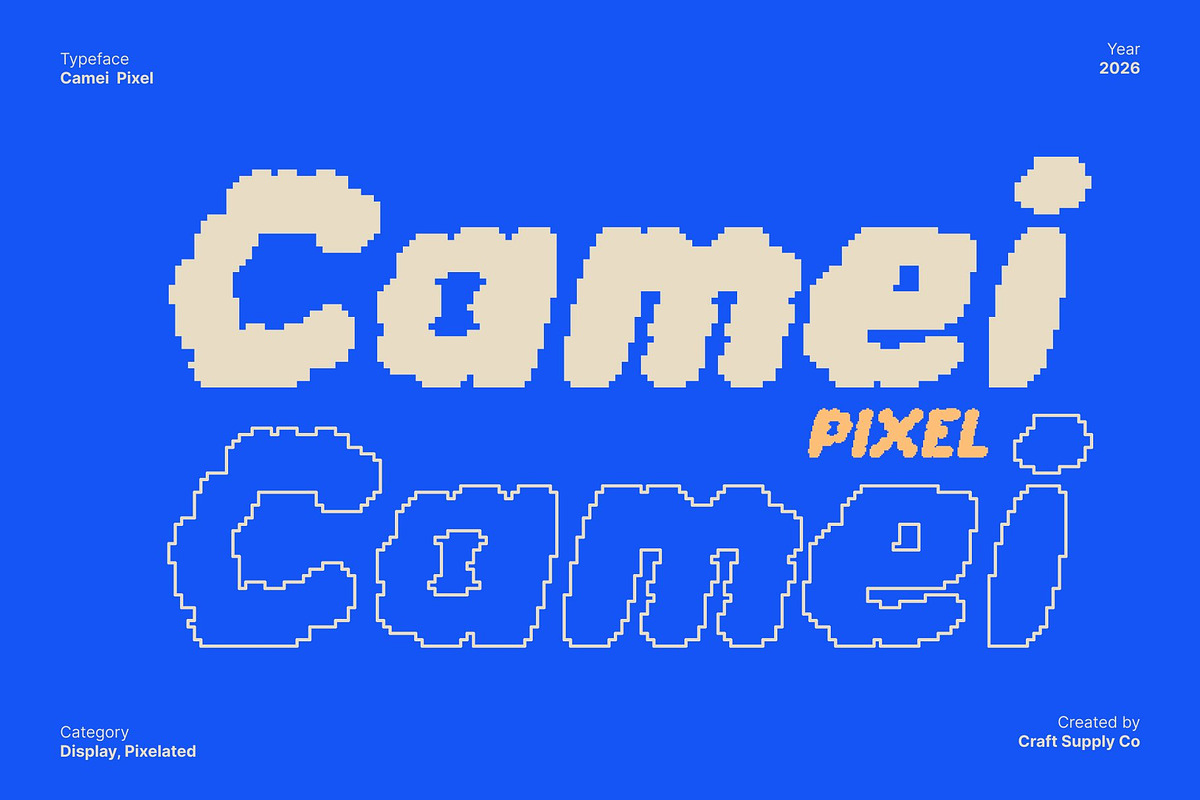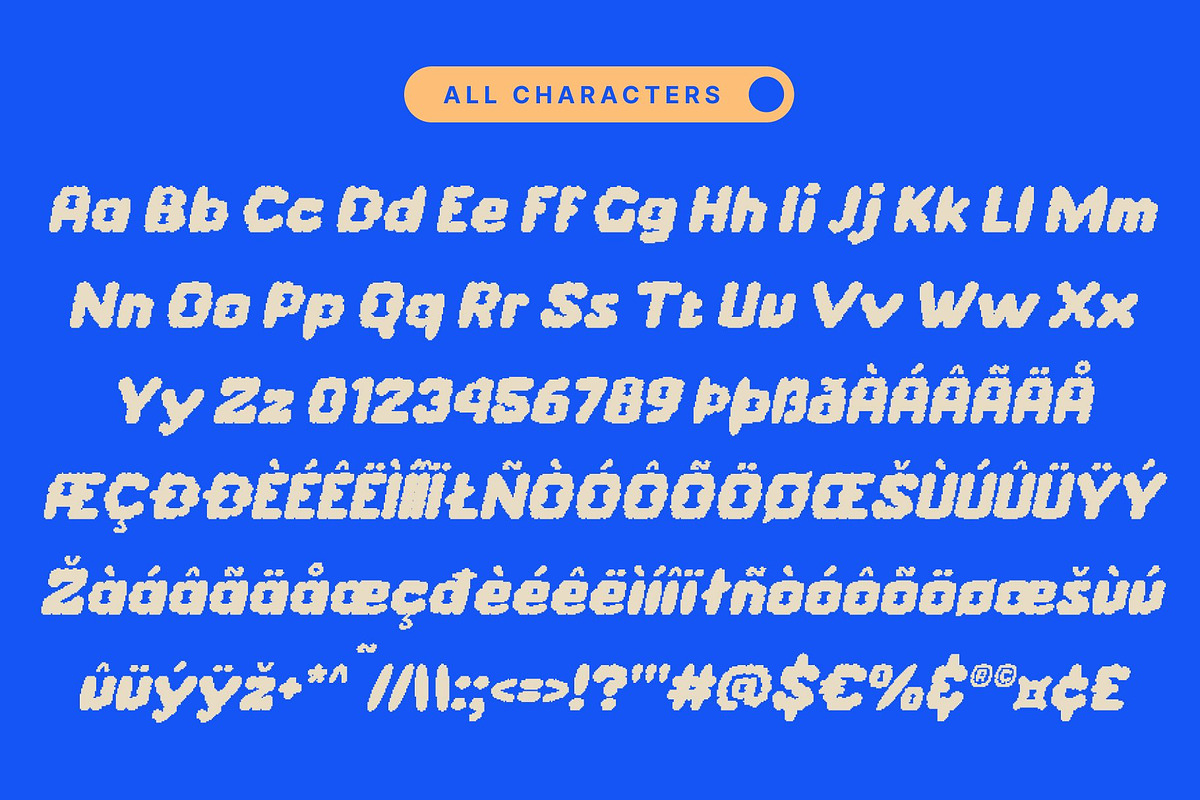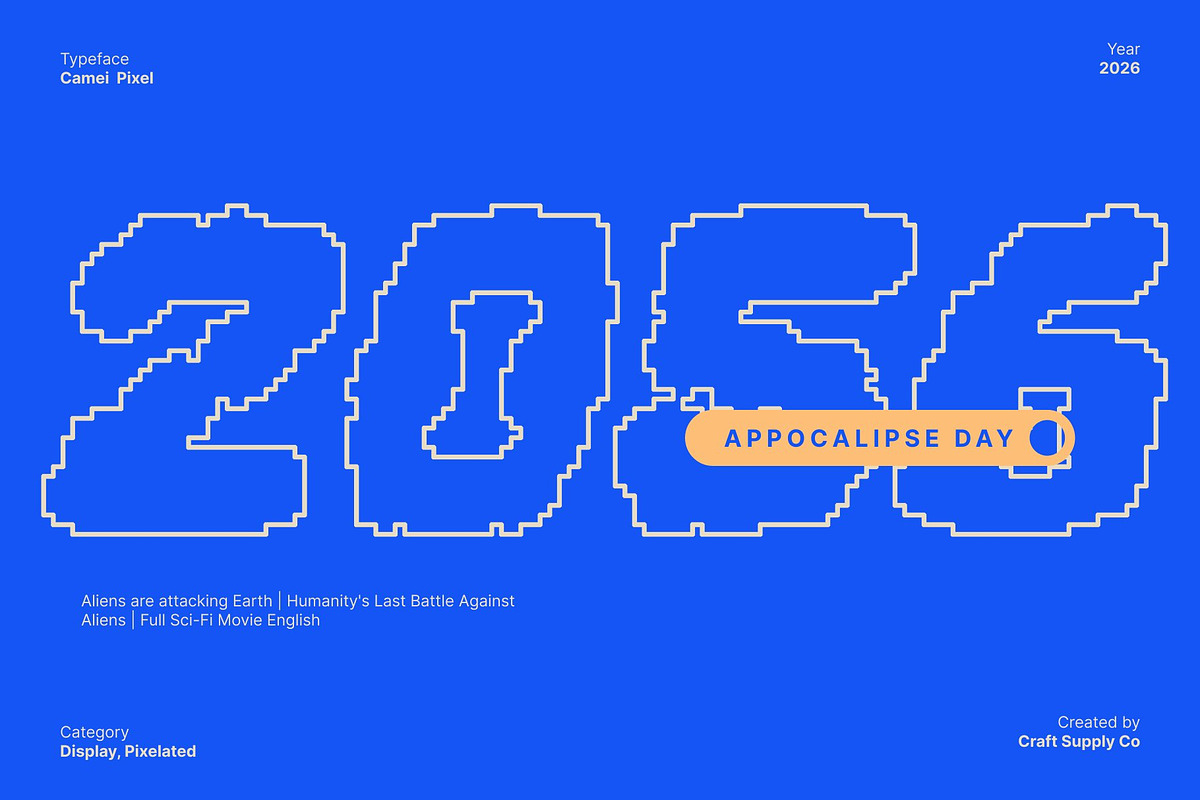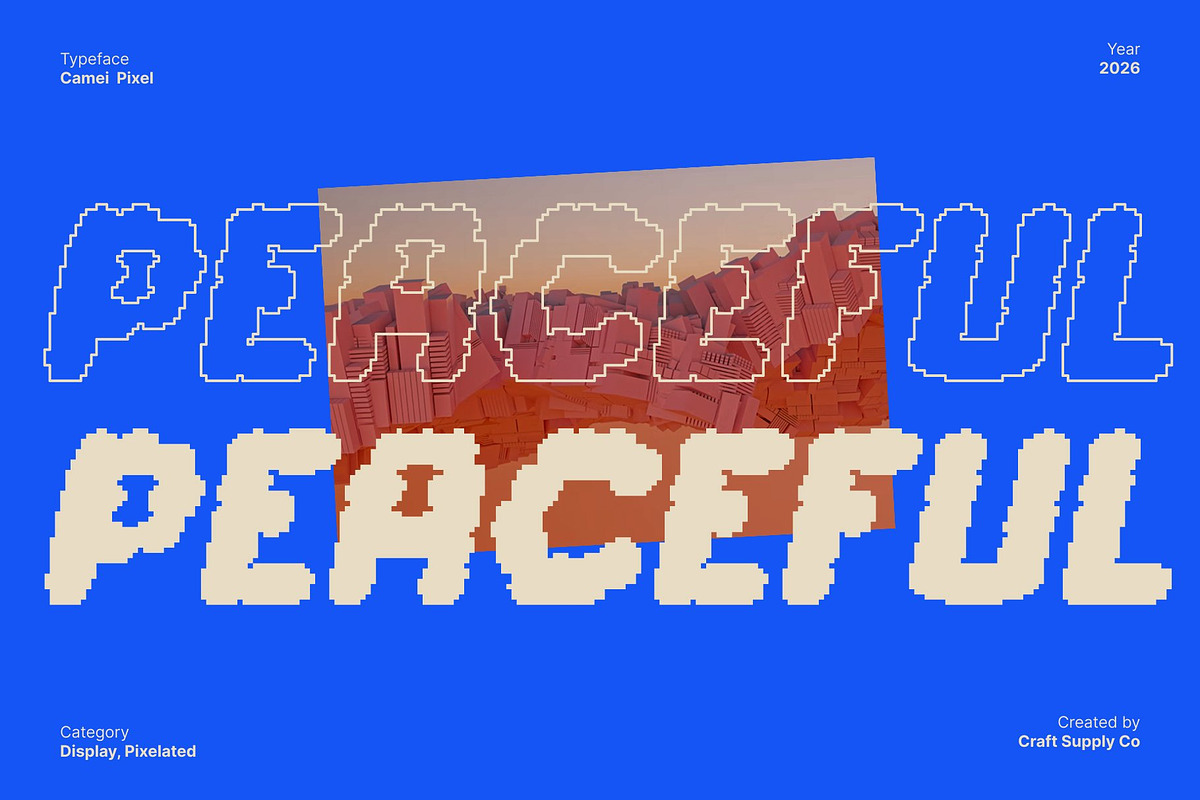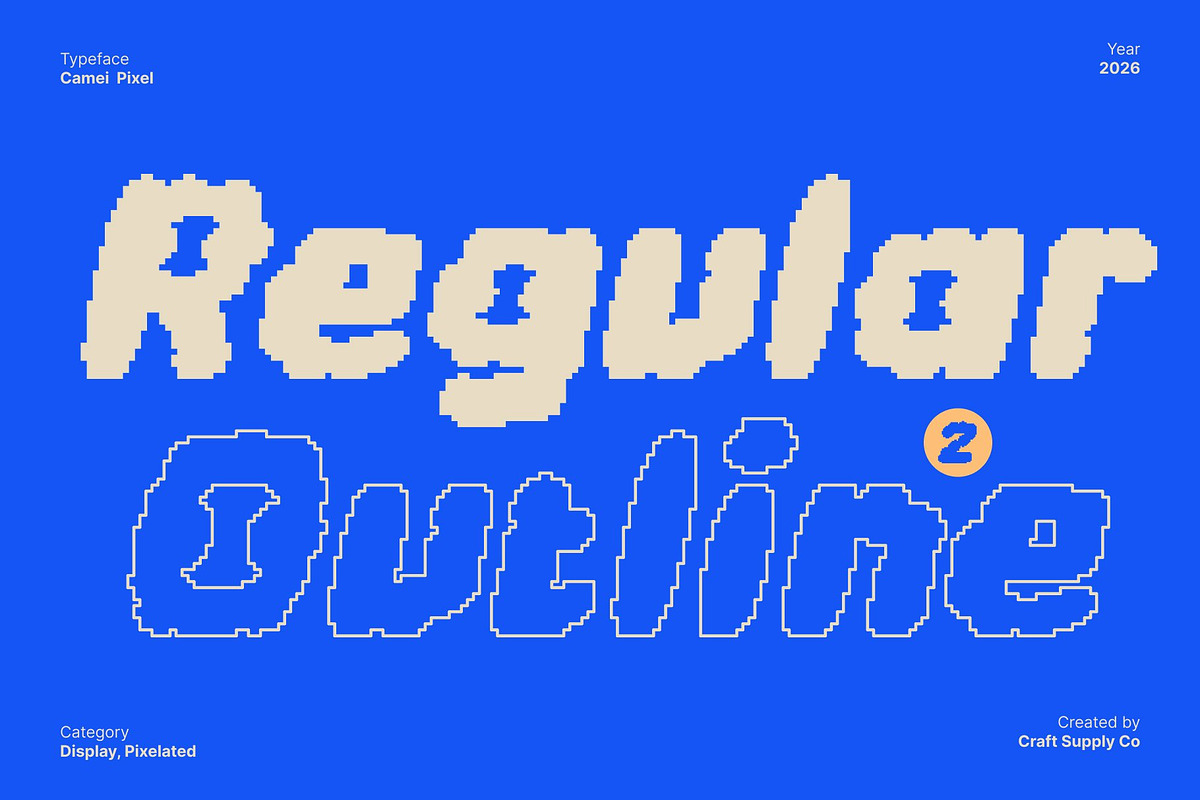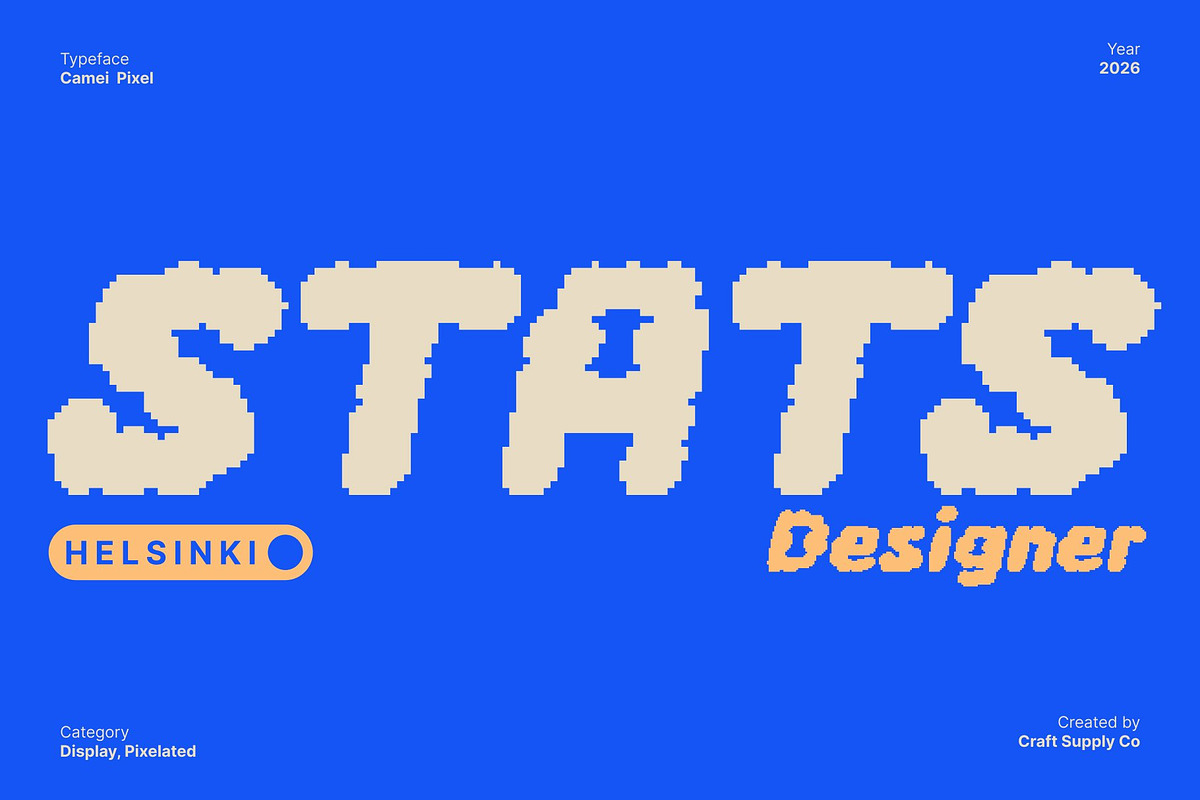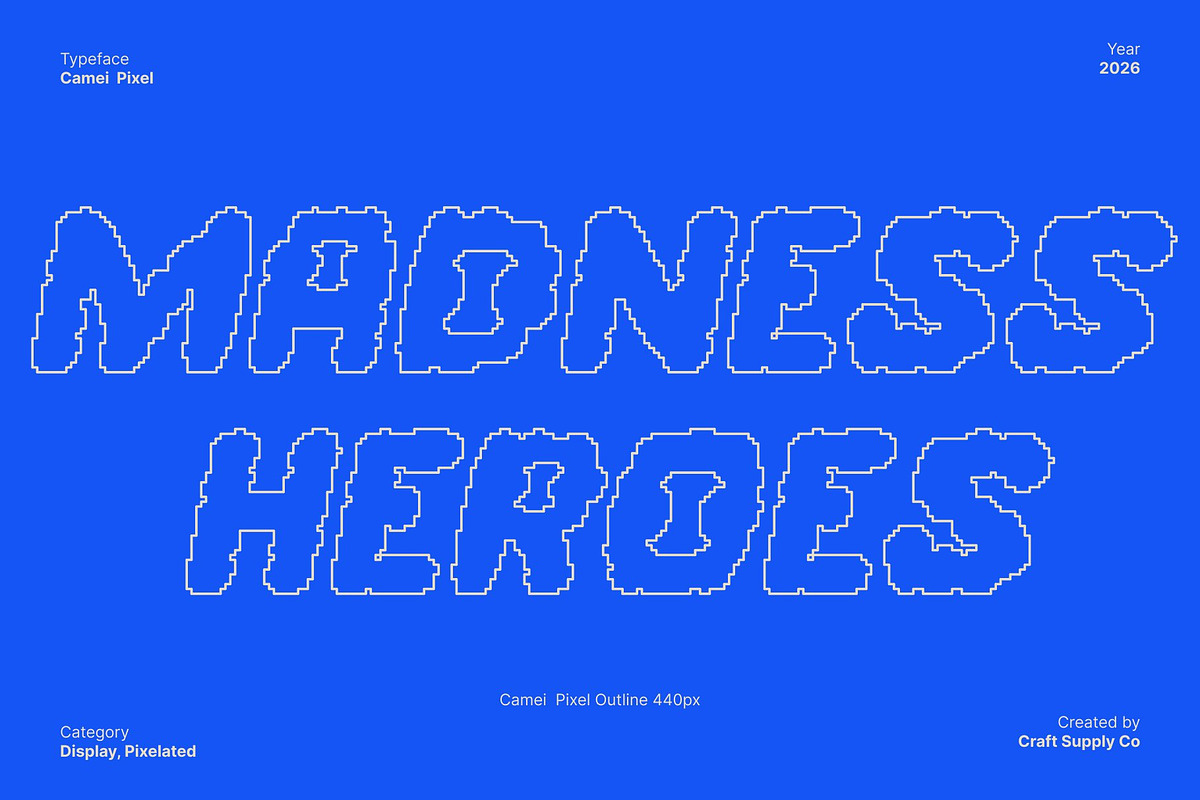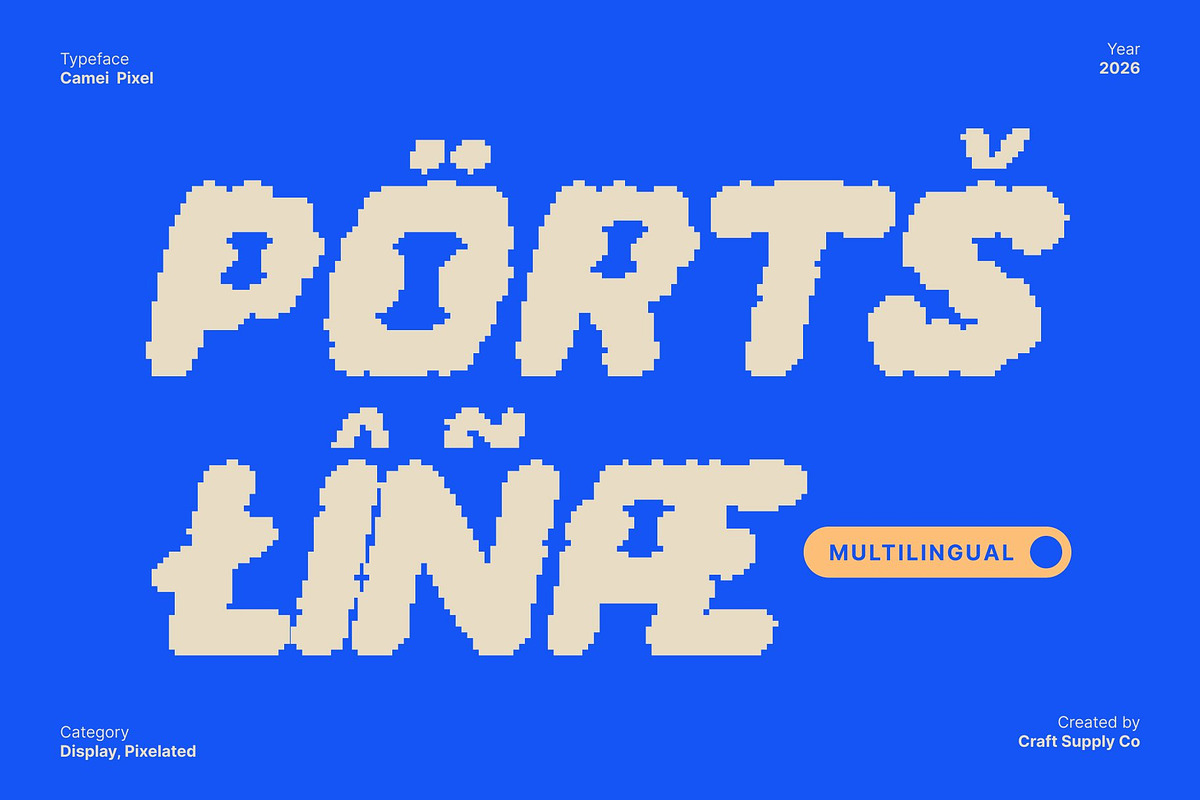
Camei Pixel
Camei Pixel – Bubble Font: Cheerful and Unique Display Typography
Cheerful and Playful Design This is a bubble-style display font that radiates cheerfulness and charm. Featuring cute, rounded, and funky bubble shapes, this typeface instantly brings a fun and lighthearted mood to any design. Its pixel-based construction adds a subtle retro digital feel, blending playful aesthetics with 8-bit nostalgia.
Perfect for Eye-Catching Displays Designed for headlines, banners, and standout display use, this font ensures your message is both eye-catching and memorable. Its bold bubble forms and pixel-perfect structure create strong visual impact, making it ideal for designs that aim to capture attention and spark joy.
Versatile and Engaging Despite its fun appearance, This is surprisingly versatile. It works beautifully across branding, posters, packaging, digital content, and creative projects where uniqueness is key. The clear, chunky shapes maintain readability while delivering a lively and engaging personality.
Add a Fun and Memorable Touch This font perfect choice for designers looking to add a playful, cute, and distinctive element to their work. Whether for logos, websites, children’s designs, or creative campaigns, this font brings character, charm, and a joyful pixel-art flair that leaves a lasting impression.
Camei Pixel Regular
Camei Pixel Outline